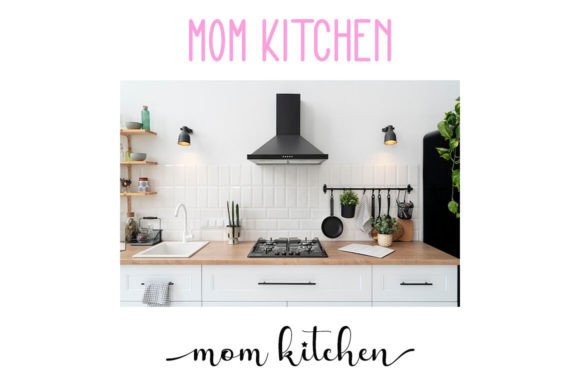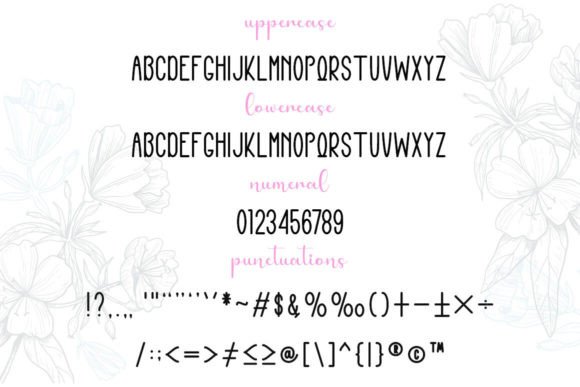
Beautiful Mama Font
Beautiful Mama is a lovely handwritten font duo featuring well-rounded characters and a stylish vibe. Get inspired by its light and approachable style, and use it in your favorite creations. This font is PUA encoded which means you can access all of the glyphs and swashes with ease!